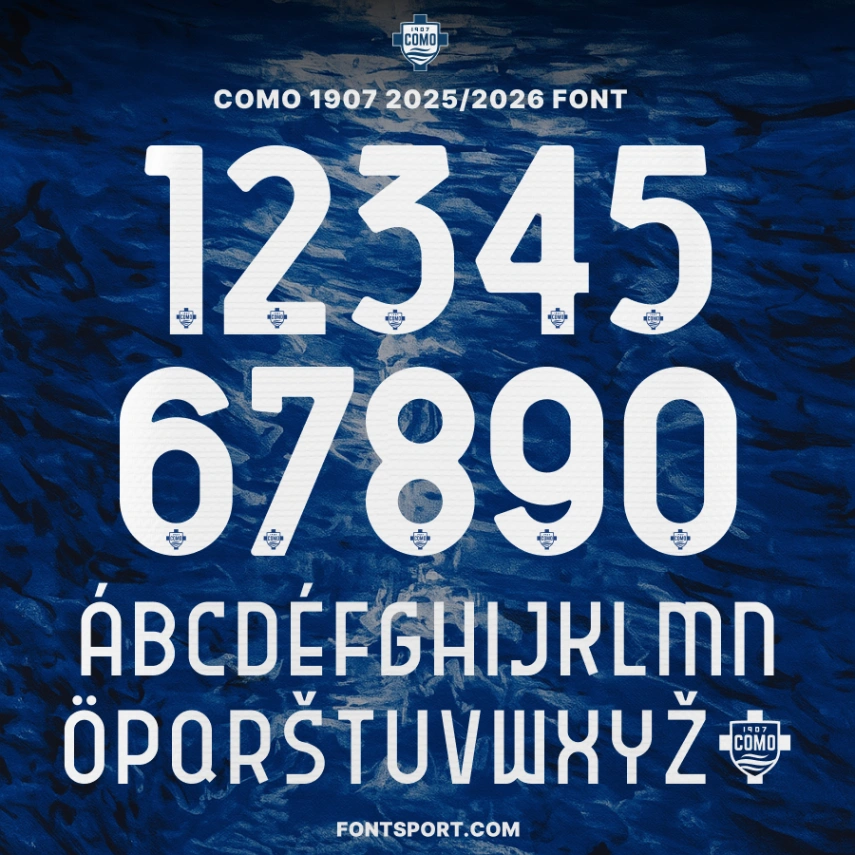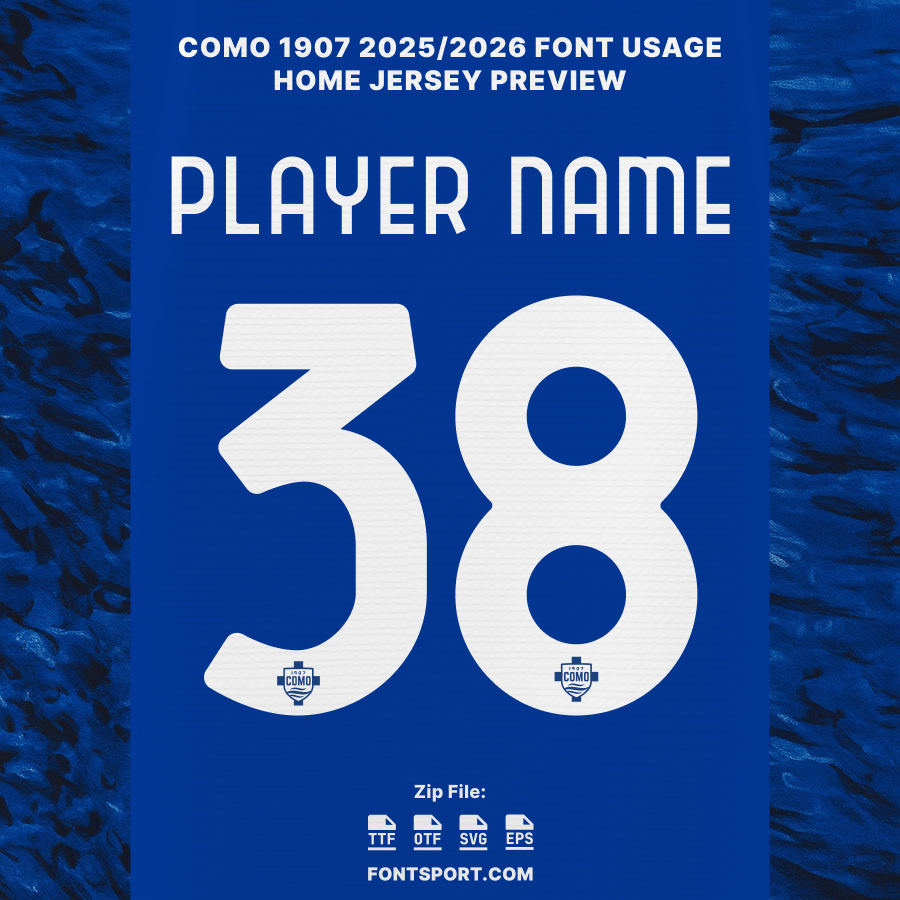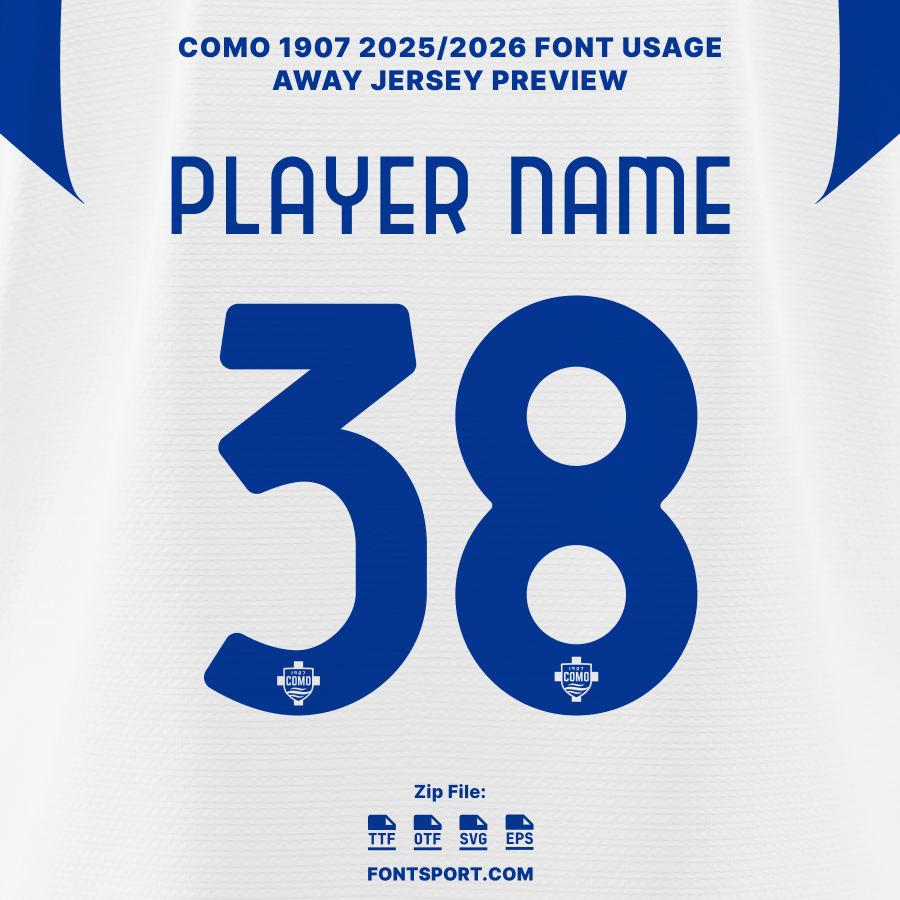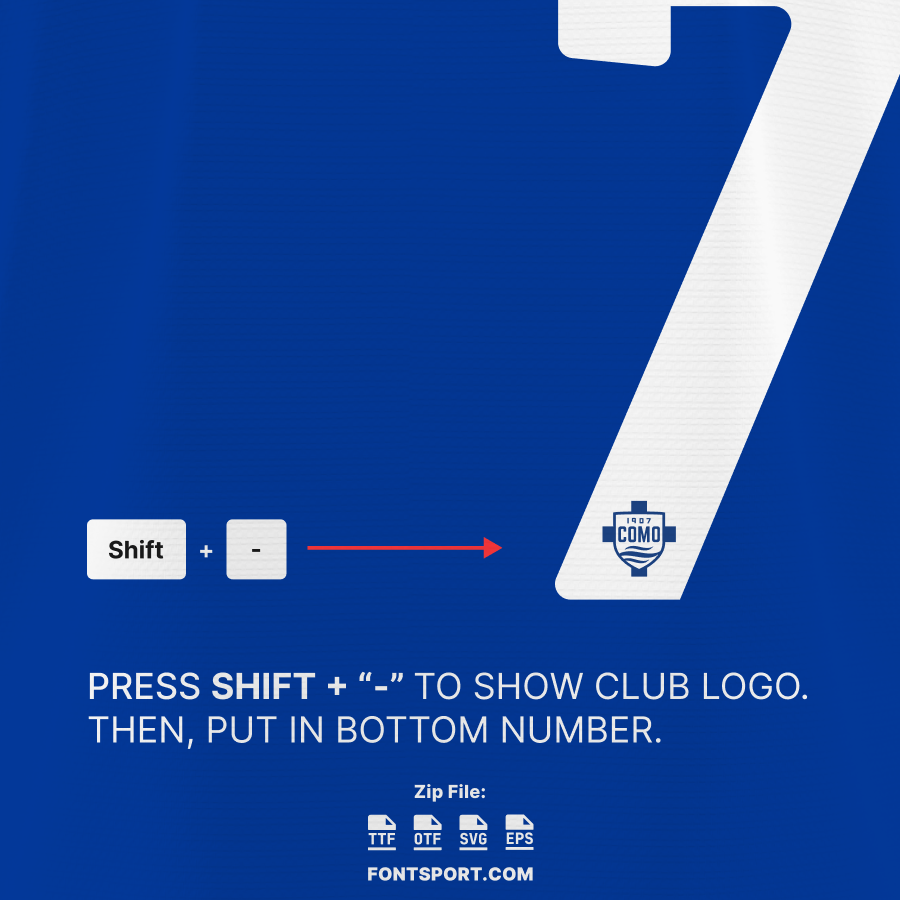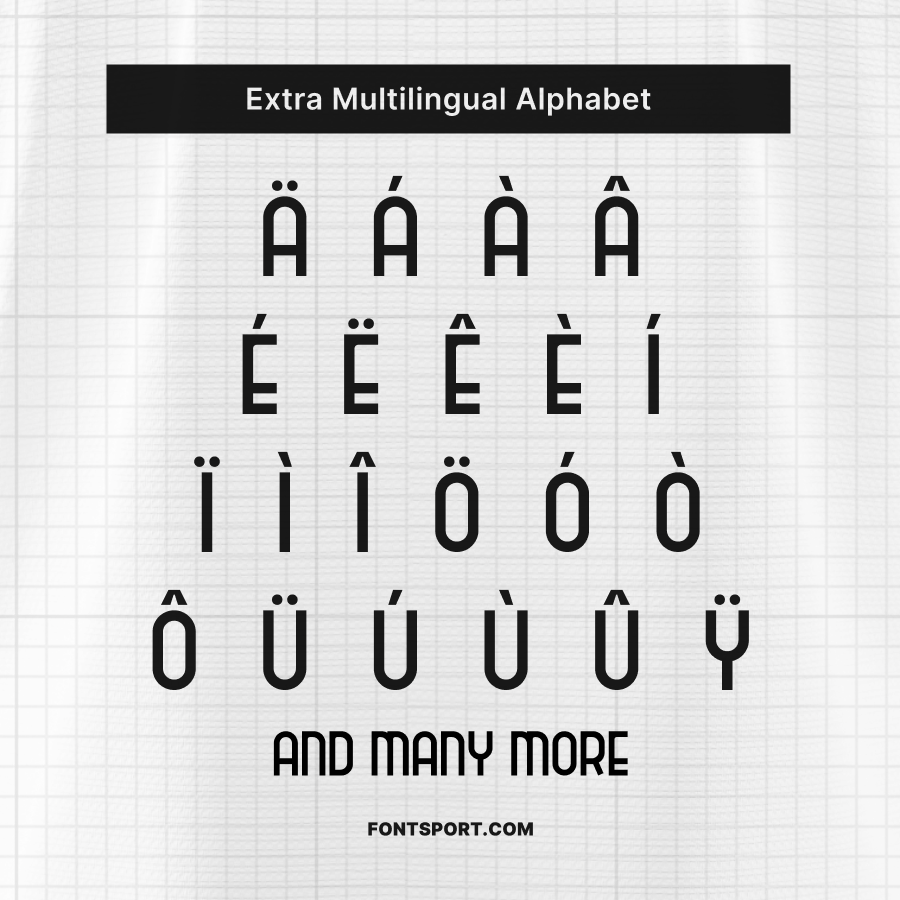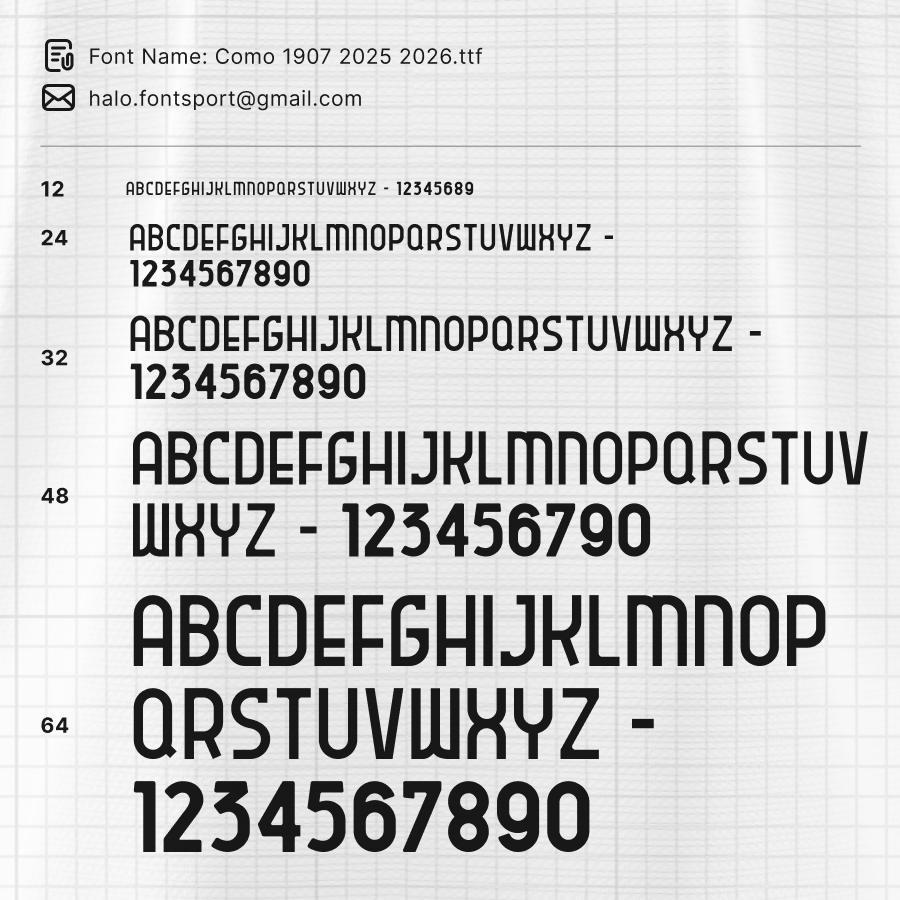
Como 1907 2025/2026 Font Kit – Serie A Typeface
The Como 1907 2025/2026 Font Kit represents the refined Italian elegance that defines Como 1907. Designed for their Serie A campaign, this official typeface mirrors the club’s renewed ambition and classic lake-side sophistication. Its tall, modern characters blend timeless geometry with perfect legibility—ideal for both professional and creative use.
Key Visual Identity
This font showcases smooth curves, balanced spacing, and bold number styling inspired by Como’s iconic blue kits. Each letterform is crafted for maximum readability on the field while maintaining a luxury aesthetic off it.
✅ Complete A–Z letters & 0–9 numbers in Como’s 2025/26 style
✅ Crest logo glyph for authentic jersey personalization
✅ Multilingual Latin alphabet support with accents
Why Designers & Fans Choose This Font
⚽ Official Serie A jersey style for Como 1907’s 2025/26 season
🏆 Includes Como’s exclusive crest logo glyph for a true club identity
Como 1907 in the 2025/2026 Season
After years of growth and passion, Como 1907 enters the 2025/26 Serie A season ready to make a statement among Italy’s elite. Led by a visionary project backed by modern management and talented players, the club continues its journey from Lake Como to the top flight with confidence. This font embodies that spirit — elegant, strong, and proudly Italian.
Whether you’re a designer creating kit mockups or a fan designing memorabilia, this font lets you carry the Como 1907 identity with precision and pride.